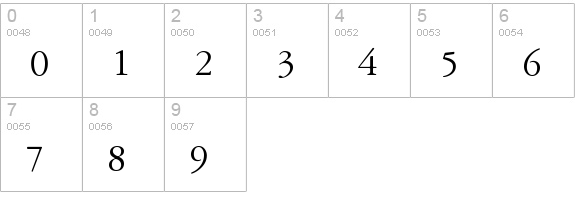
Garamond Three Font Details
Garamond Three font is a timeless and elegant typeface that exudes sophistication and class. With its graceful curves and balanced proportions, this font is perfect for adding a touch of refinement to any project. Whether you're designing a wedding invitation, a book cover, or a logo, Garamond Three font will elevate your design to the next level. And the best part? Garamond Three font is completely free to download at FontsMarket.com. You can access this exquisite font at no cost and use it in your personal or commercial projects with ease. Don't miss out on this opportunity to enhance your designs with the beauty and grace of Garamond Three font. Download it today and let your creativity shine!